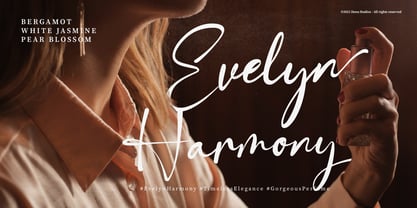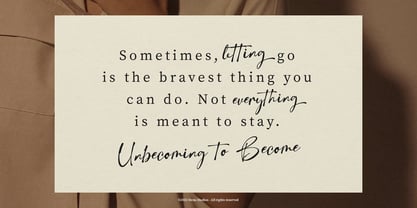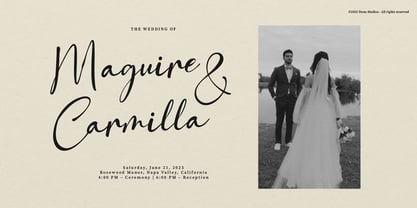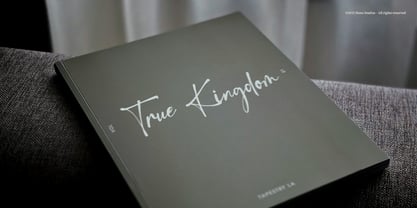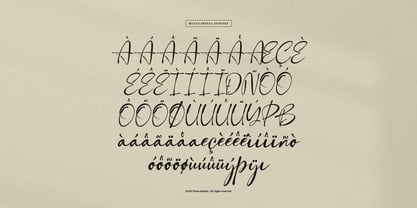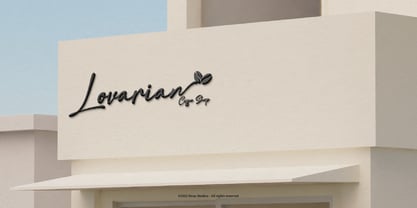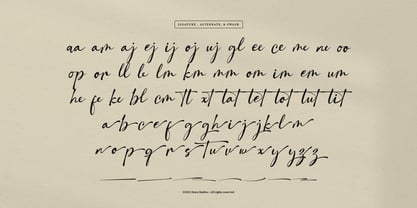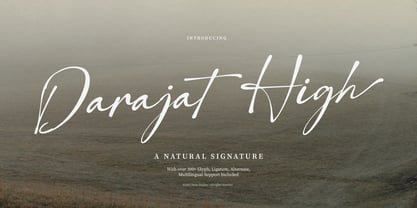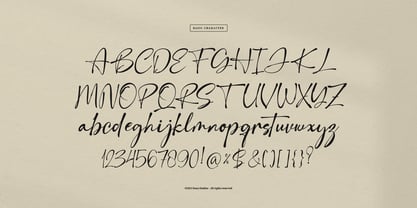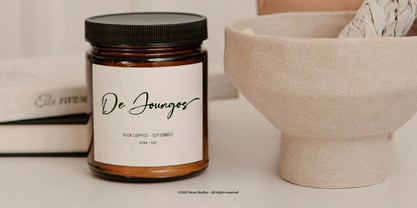
Darajat High
The Darajat High Font Family was designed by Dede Nugraha and published by Denustudio. Darajat High contains 2 styles and family package options. More about this family
Darajat High | Natural Signature, from Denustudios, suitable for any projects such as: logos, branding projects, homeware designs, product packaging, mugs, quotes, posters, shopping bags, t-shirts, book covers, name card, invitation cards, greeting cards, label, photography, watermark, special events, and all your other lovely projects that need Natural Signature a taste.
• Regular and Italic
• Alternate and Ligature